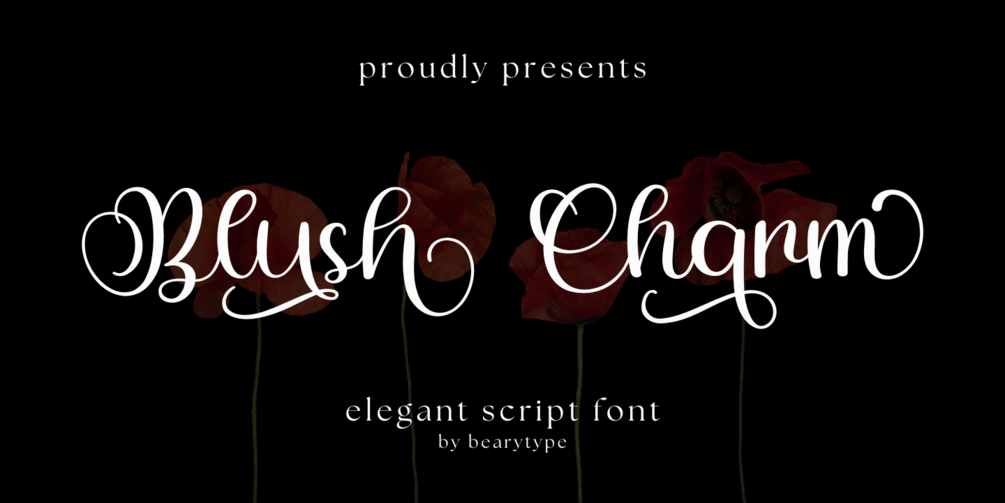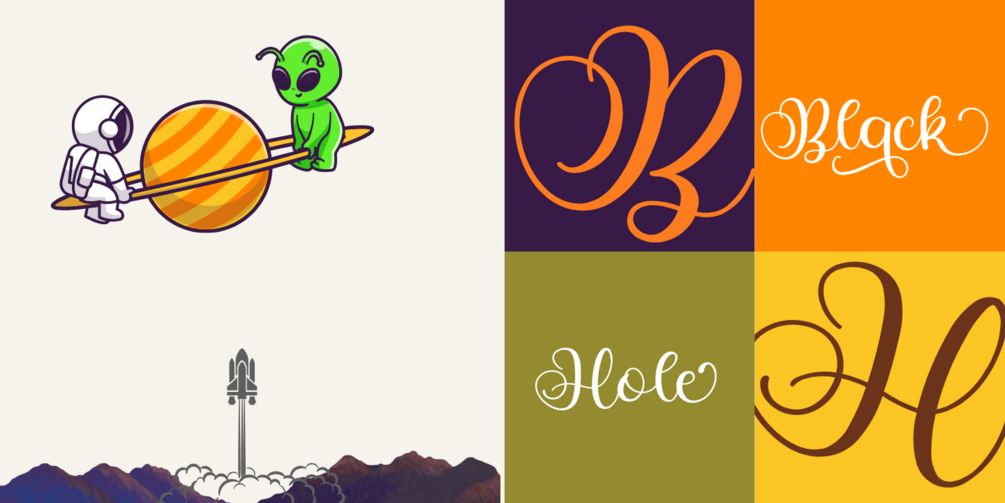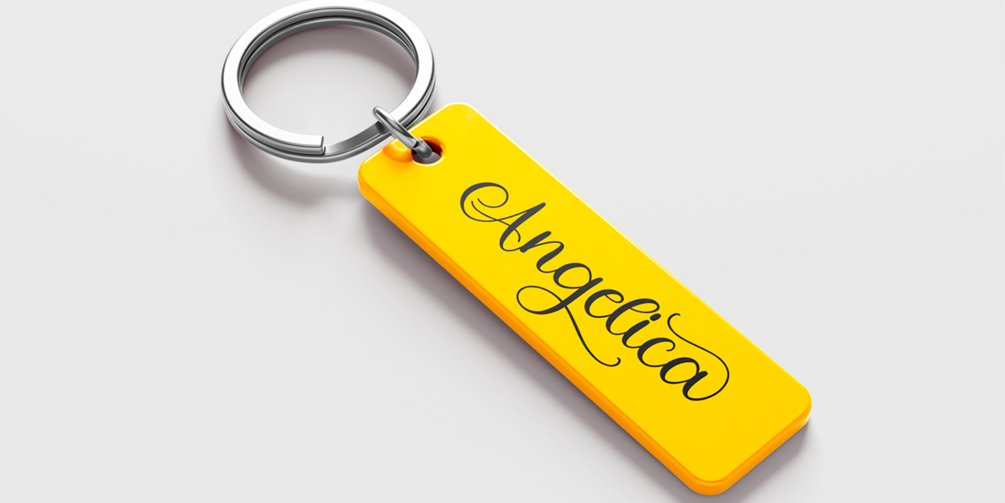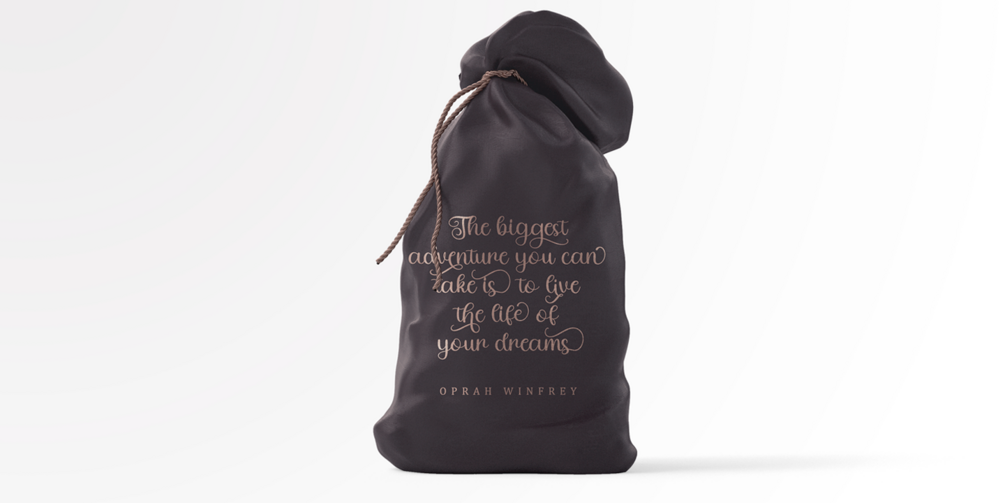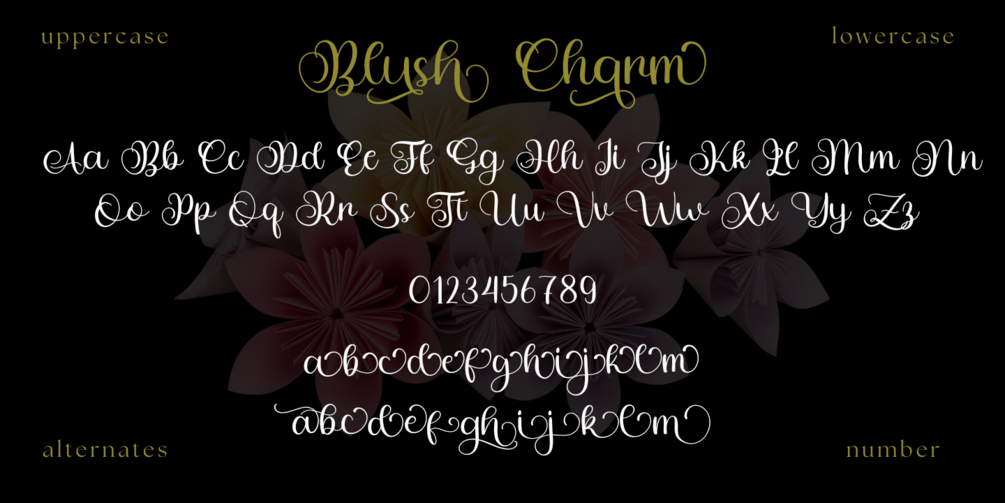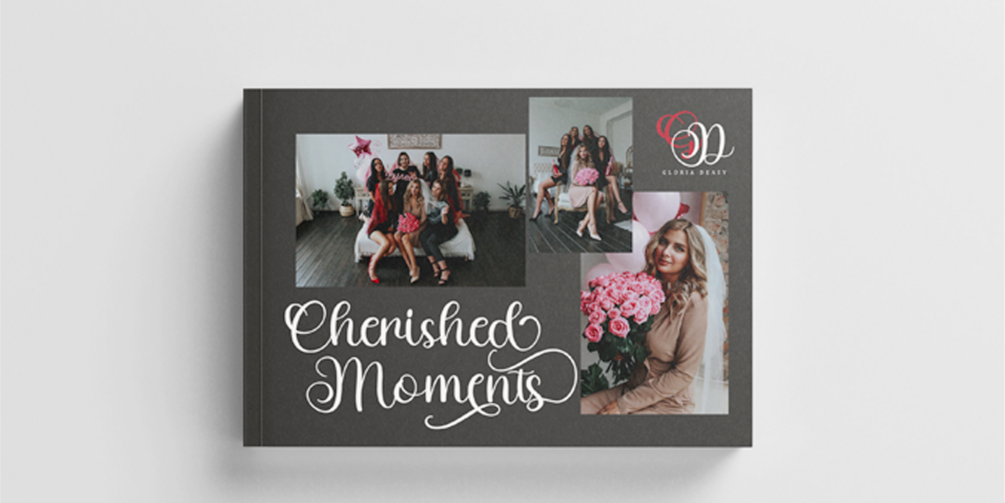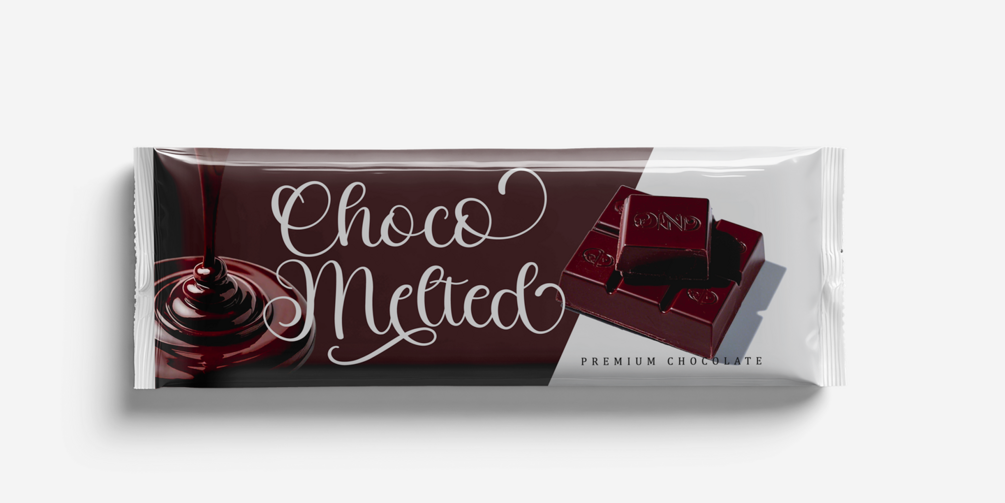
Blush Charm
Introducing Blush Charm – a graceful and feminine handwritten font designed to add elegance and beauty to your creations. With its delicate strokes and flowing letterforms, this font exudes charm and sophistication, making it perfect for stylish and romantic designs.
Blush Charm features a stunning collection of alternate characters, allowing you to create effortlessly elegant typography with a personal touch. Whether for wedding invitations, branding, social media, or heartfelt quotes, this font brings warmth and refinement to any project.
Designed with versatility in mind, Blush Charm includes a complete set of uppercase and lowercase letters, numbers, punctuation, and an array of exquisite swashes and alternates, giving you endless creative possibilities.
Let Blush Charm elevate your designs with its timeless femininity and artistic elegance!